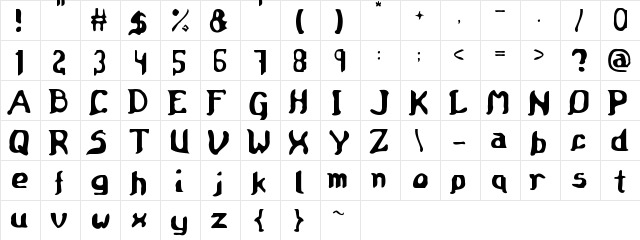
Medieval Scroll of Wisdom Regular
Design Context for Medieval Scroll of Wisdom Typeface
Medieval Scroll of Wisdom is a composed and adaptable typeface that performs quietly and consistently across a wide range of design contexts.